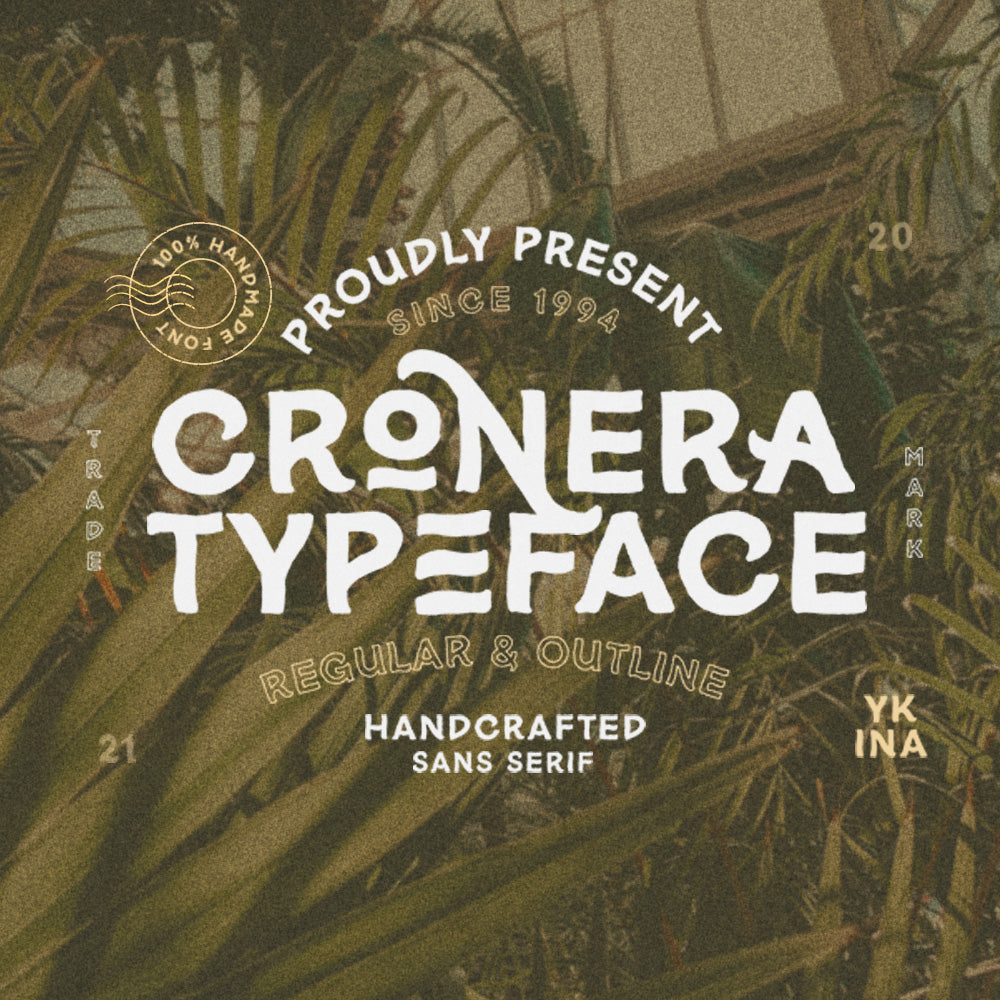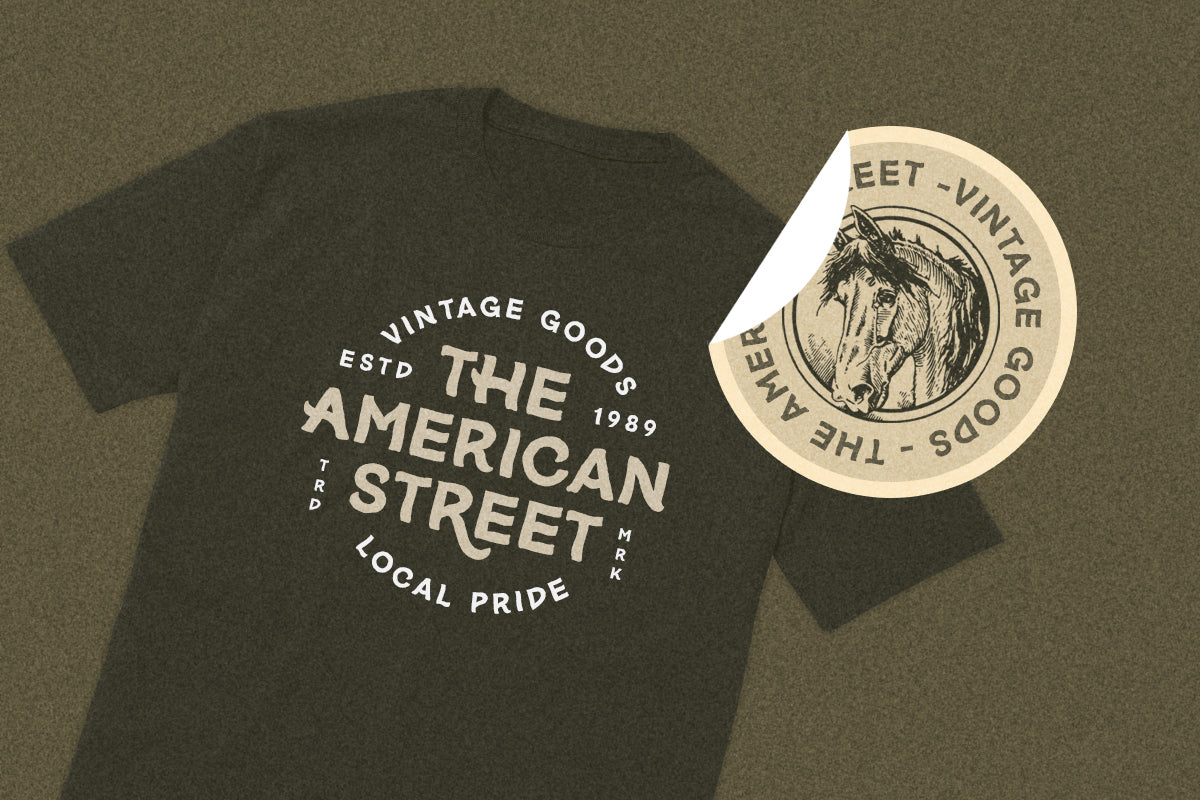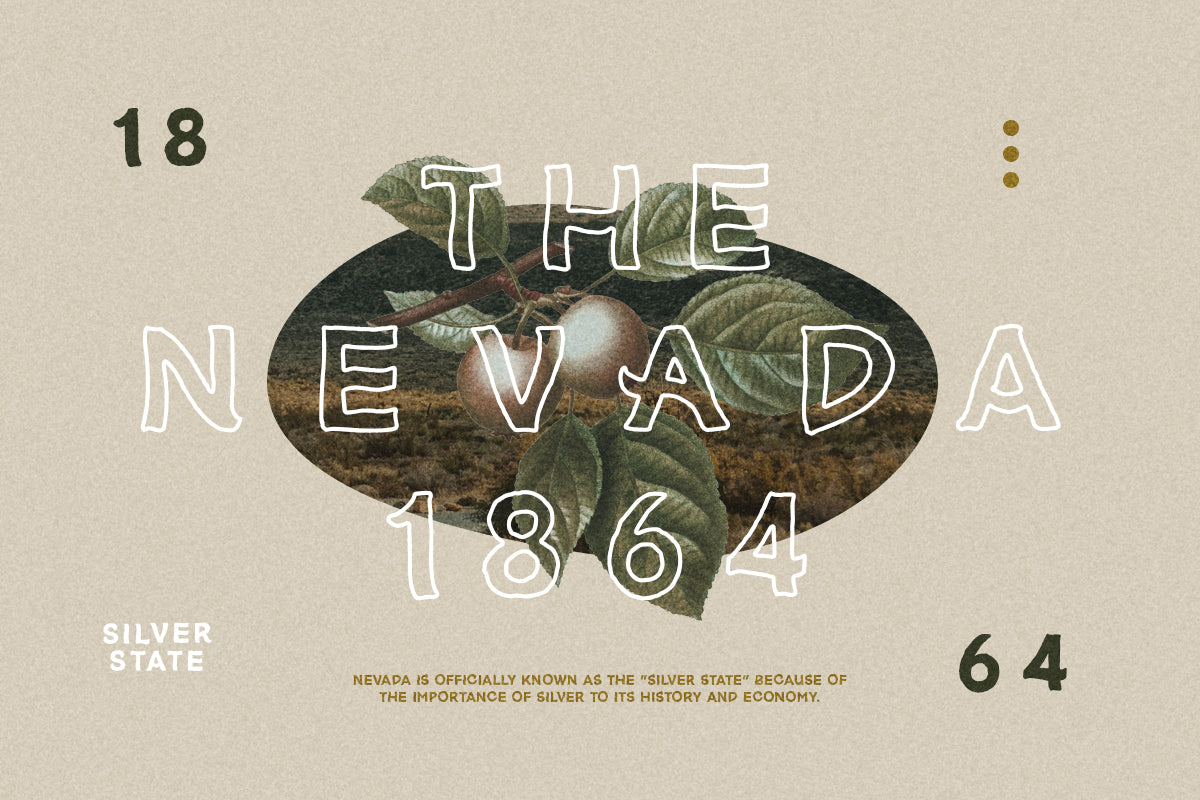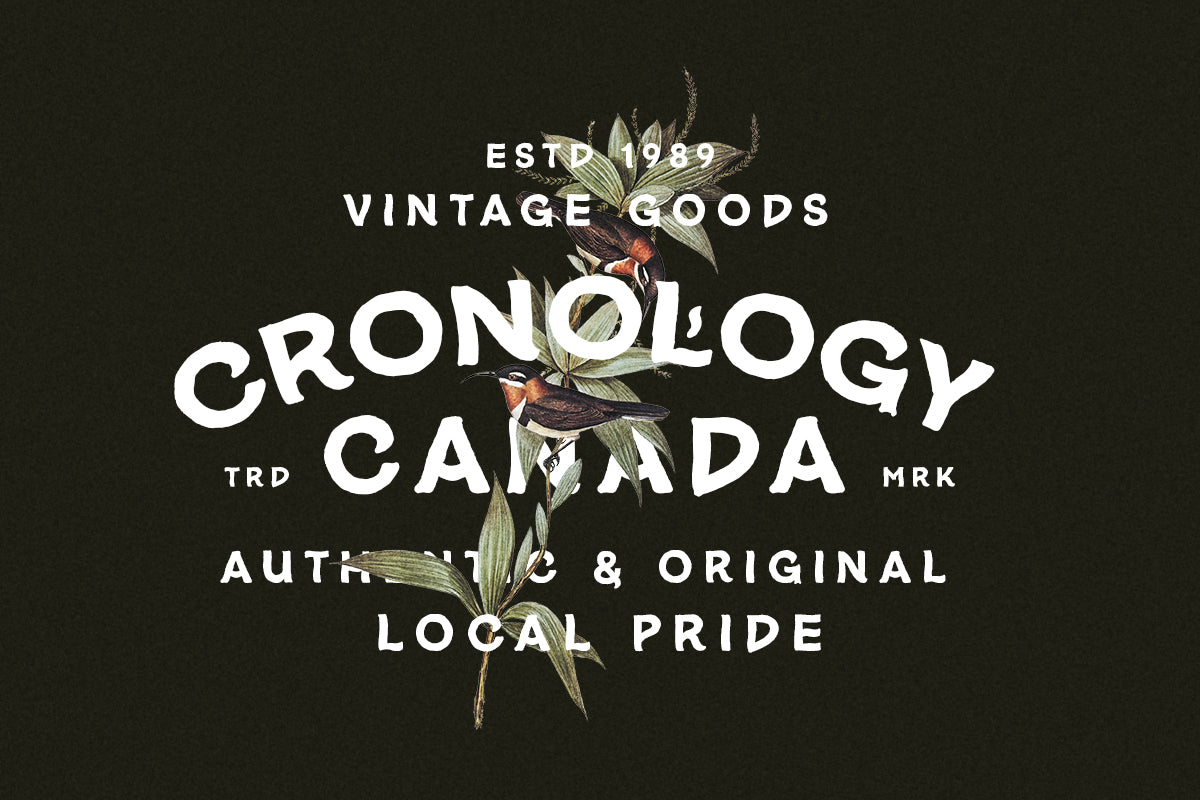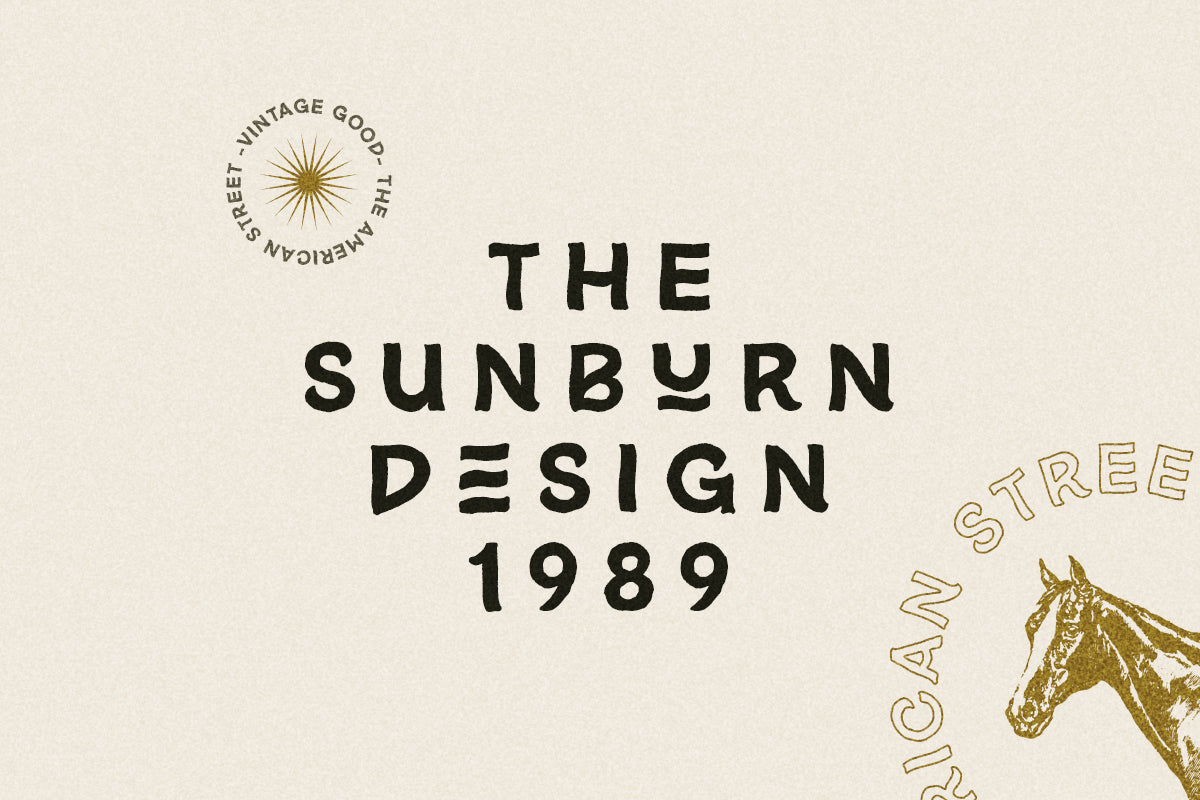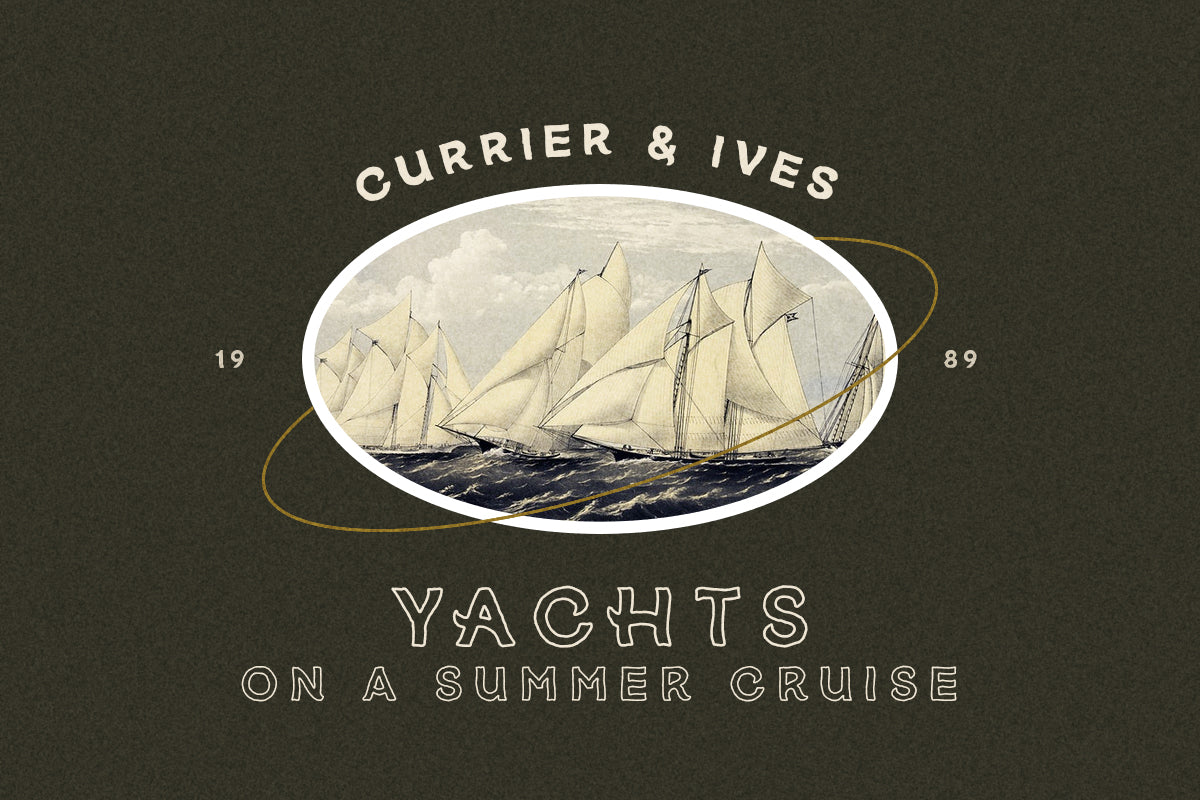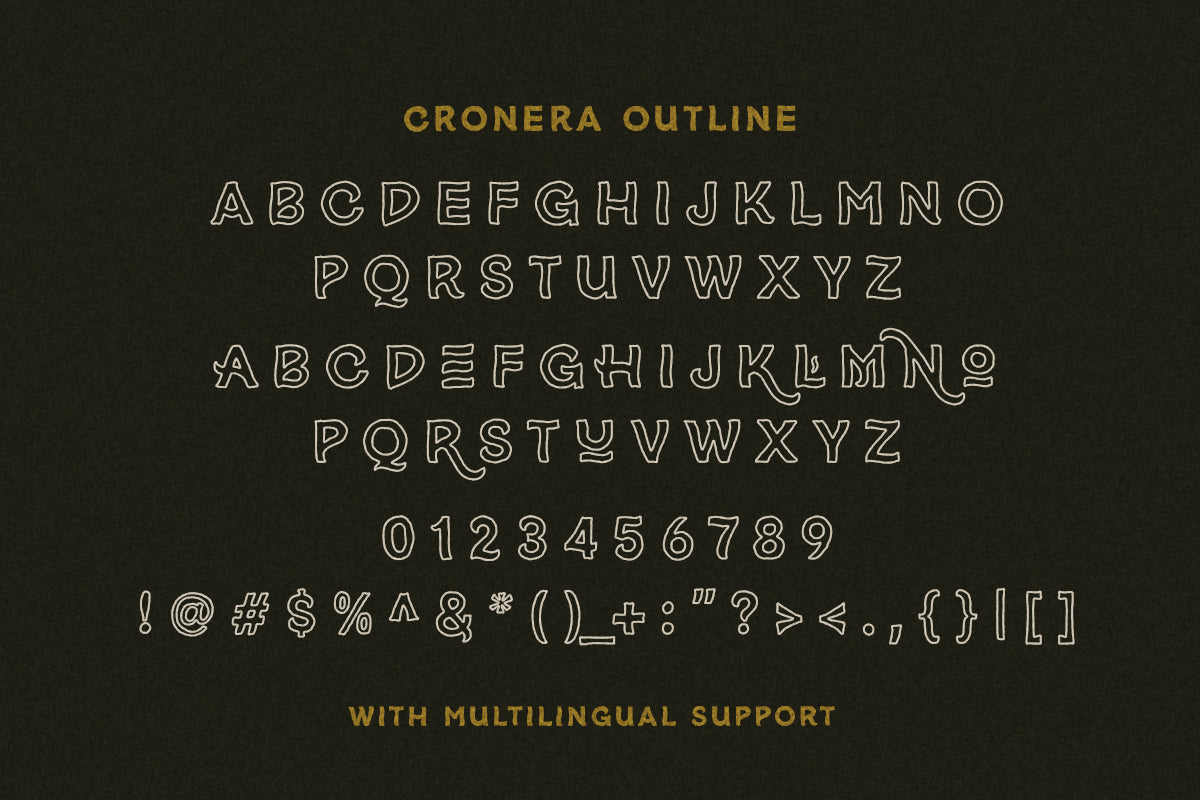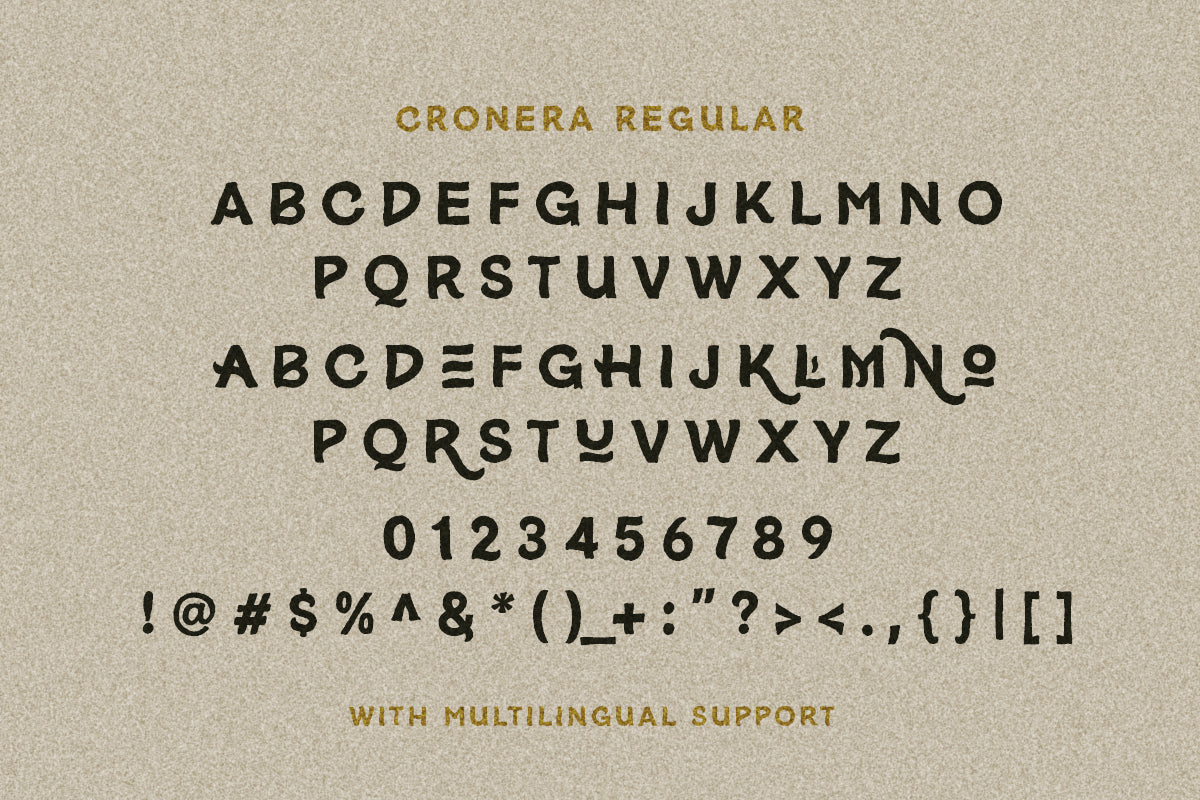
Cronera - Handcrafted Typeface
Cronera is a handcrafted sans serif typeface that features a hand lettering style, offering both regular and outline versions. It supports multilingual characters and is suitable for a variety of design projects, including branding and display purposes.